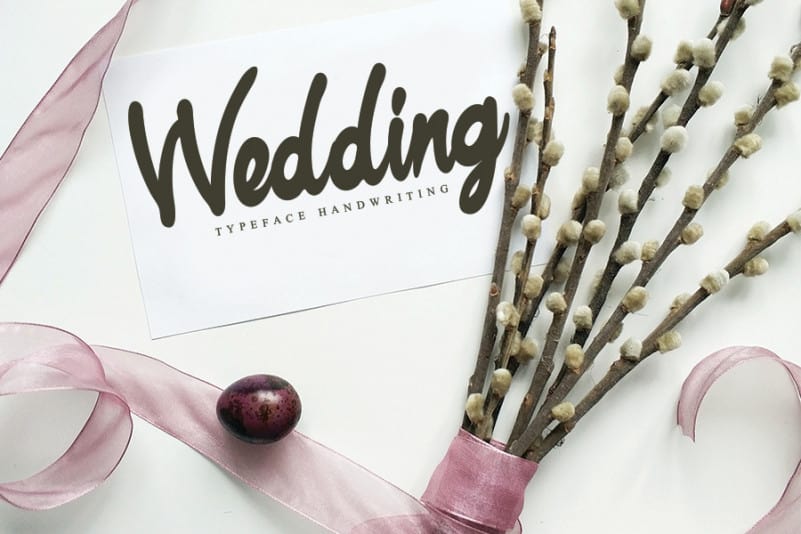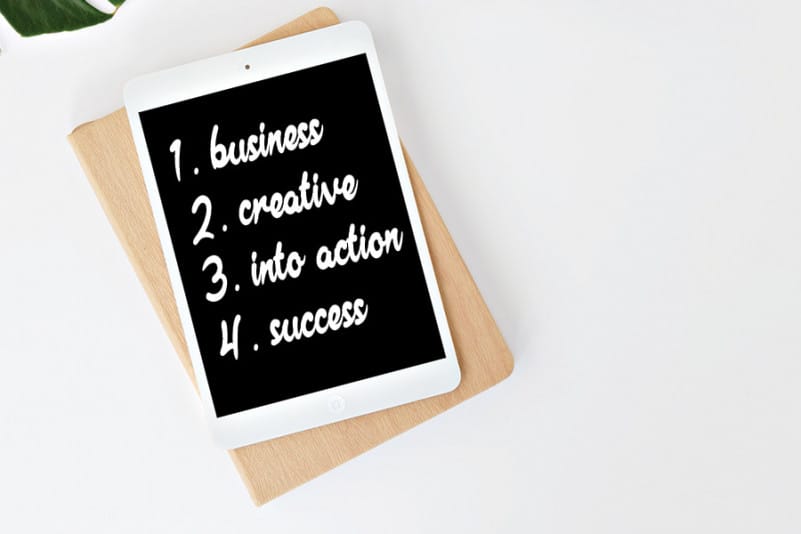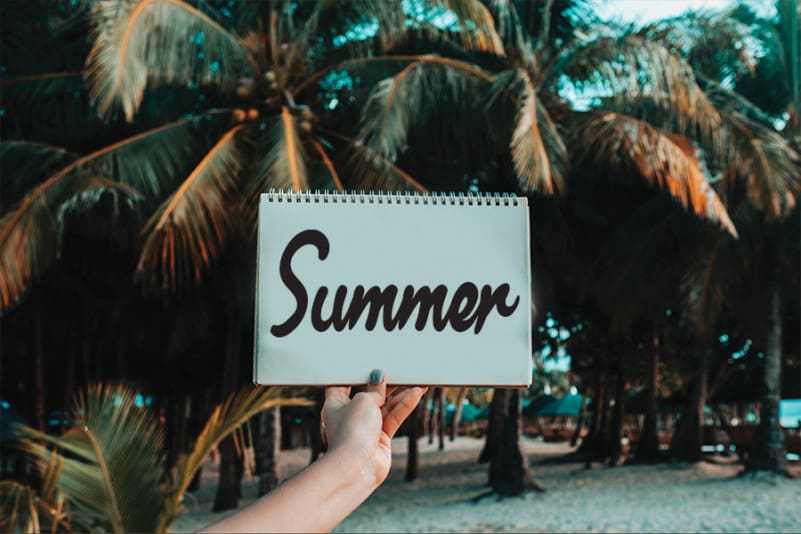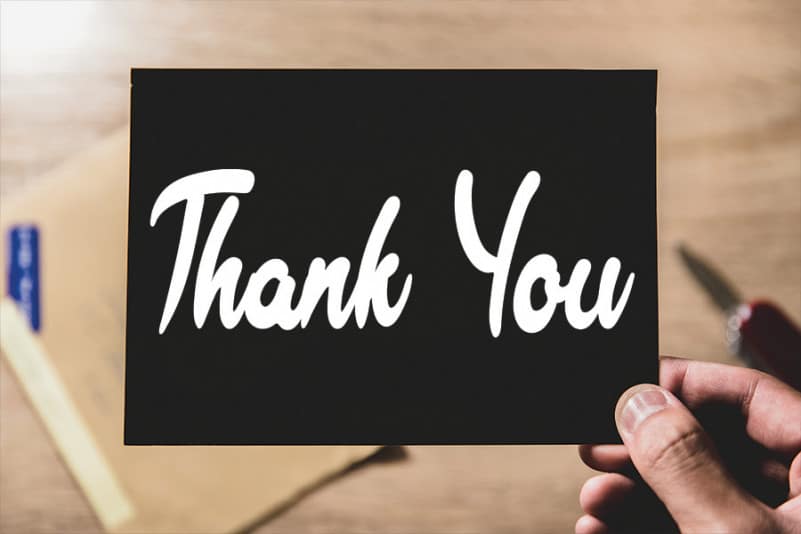
Carnation Handwritten Font
Carnation Font is a cursive and flowing handwritten font, created with the help of a brush pen. It looks beautiful and fresh on invitations, cards, quotes, greeting cards, logos, business cards and so much more!